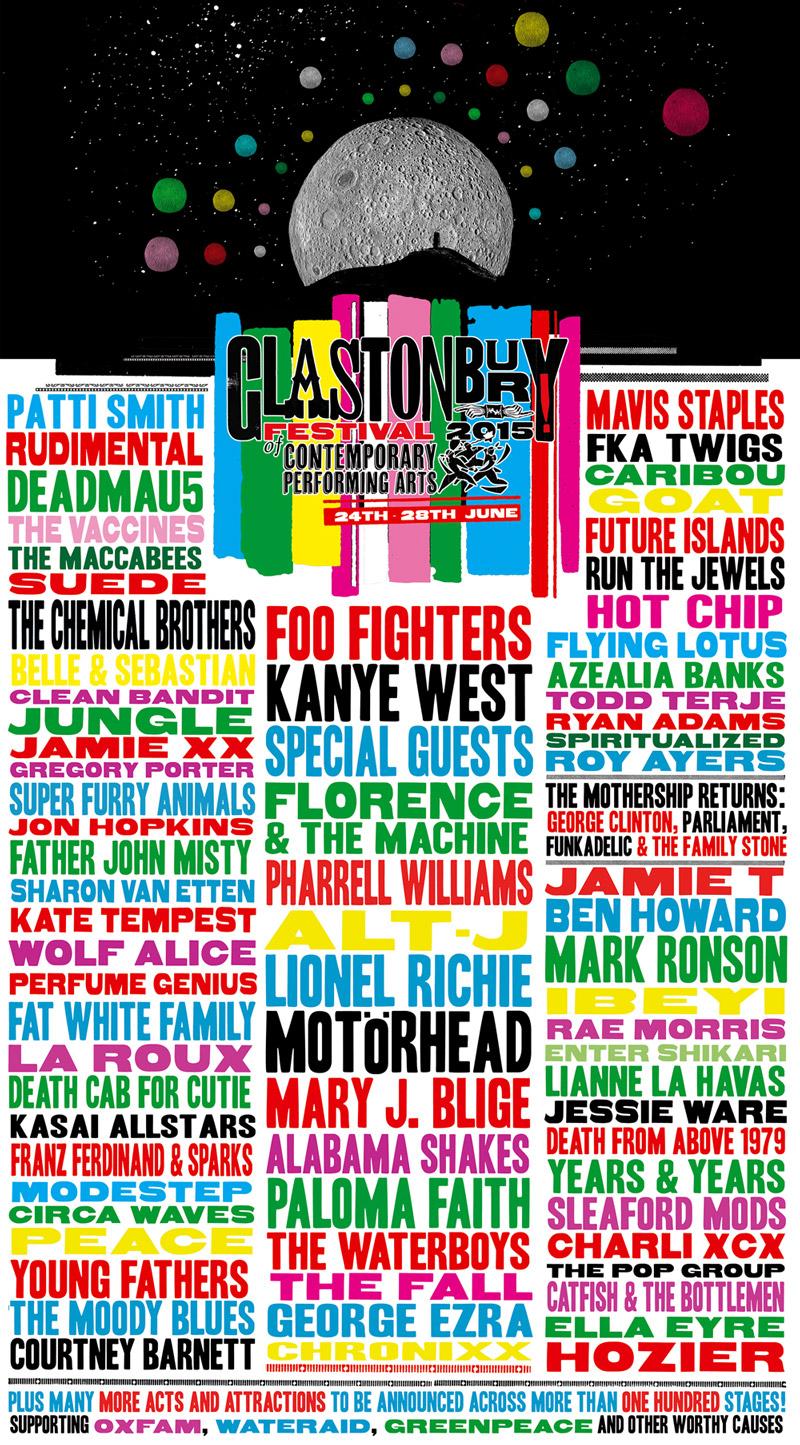
Glastonbury’s festival posters are as individual as the fest itself
It was back in 1970 when, just one day after the death of Jimi Hendrix, the firstGlastonbury music event took place at Worthy Farm in Pilton, Somerset. Boasting appearances from The Kinks, Al Stewart, Keith Christmas, T Rex and Stackridge the music event had a stellar line-up with tickets sold at £1 each which included free milk from the Worthy Farm cows. The simple black-and-white poster that looked like it was for a village fair was enough to plug 13 bands and 2,000 people in this Pop, Folk & Blues festival. In the early years the festival had a bumpy ride, its existence threatened by new licensing laws, security breaches and reluctance from the local council. However, from 1979 onwards, and despite a few ongoing glitches, the festival became firmly established and has continued to grow ever since. In 1979 there were some 12,000 people; ten years later it was 60,000. This year, on October 5th, tickets for Glastonbury 2015 went on sale at 9am. Within a record 29 minutes, all 150,000 had sold out. There is something about the festival that makes it more than ‘just rock bands playing in fields’ according to Noel Gallagher and he was absolutely right. With its mystical, hippie beginnings in the 1970s and its strongly ethical, deeply historical ethos, performing at Glastonbury is a historic moment in any musician’s career. Today, Glastonbury has become a British institution and the posters of the festival are as individual as the music event itself. The posters had to adapt like the festival itself from promoting the acts and the free milk in the most artistic and informative way possible. Thanks to photographer Jason Bryant who spent numerous hours transferring the posters into a digital format, Glastonbury Festival’s poster archive is a reality. From the simple black and white through the “hippy-ish” to the bold and vibrant, Glastonbury's typographic elements changed like the festival itself transformed the music industry. Put your headphones on and delve into this amazing selection from the present to the past.